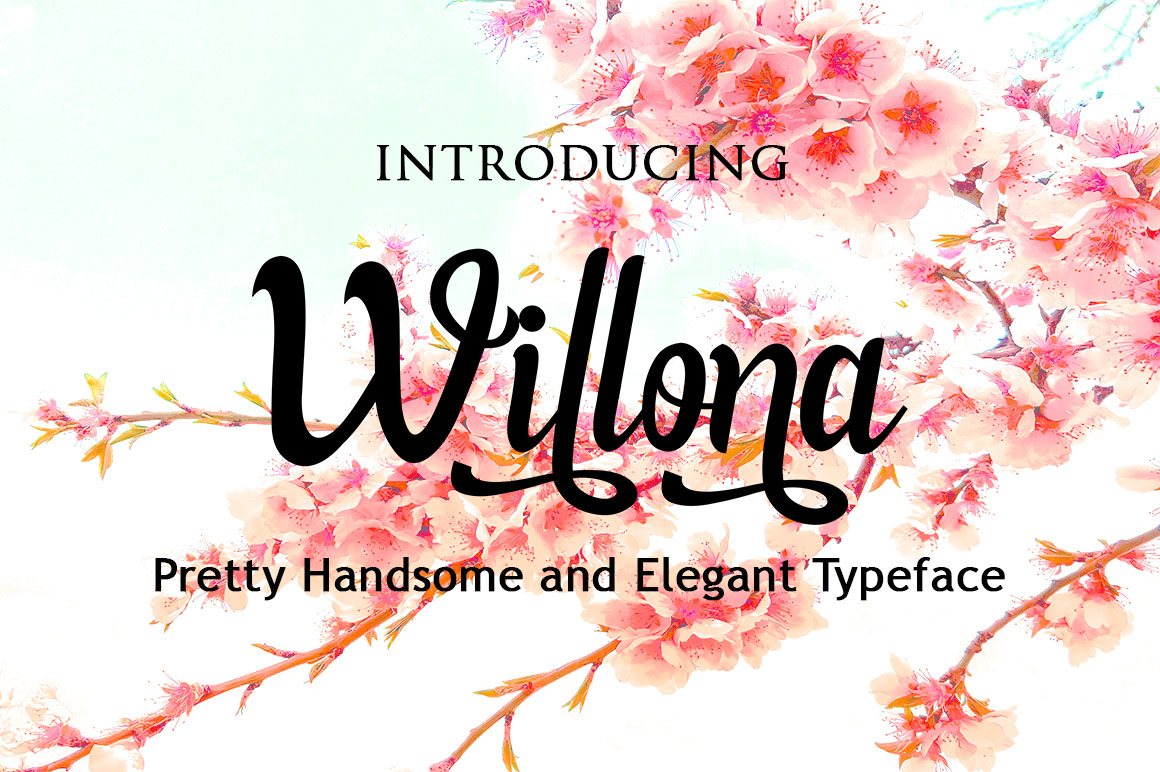
Willona Script Font
Willona is a handsome and friendly looking calligraphy script font, ideal for giving your headlines a touch of elegance and style. This font comes with character alternates, making it ideal for projects that need an added feel of uniqueness.